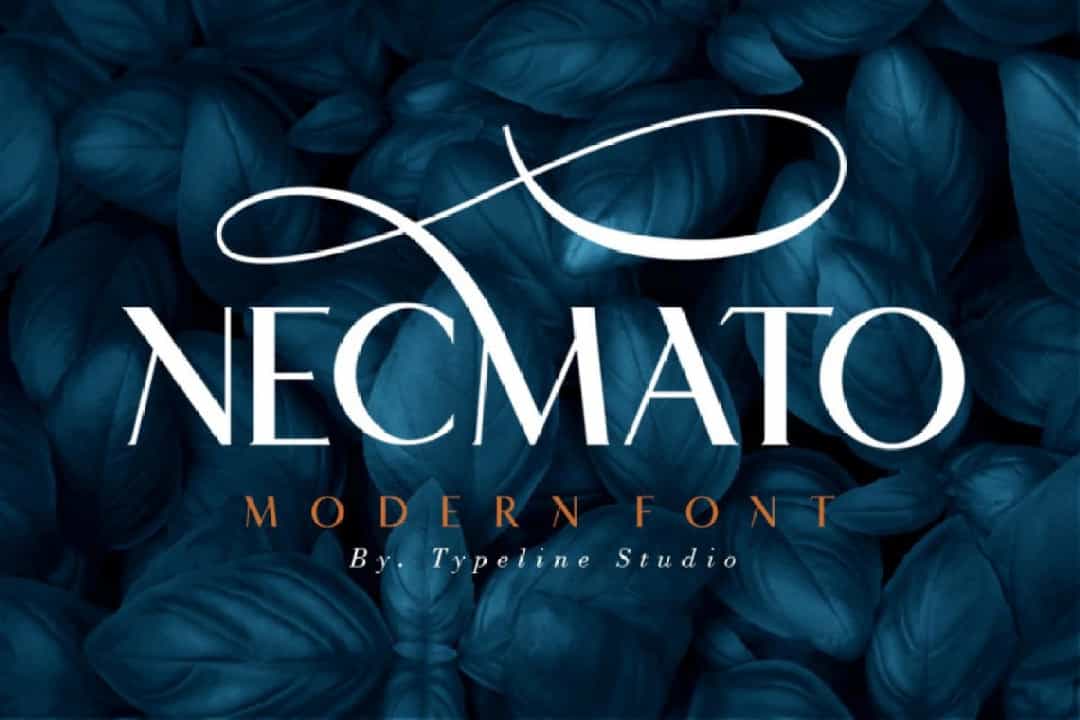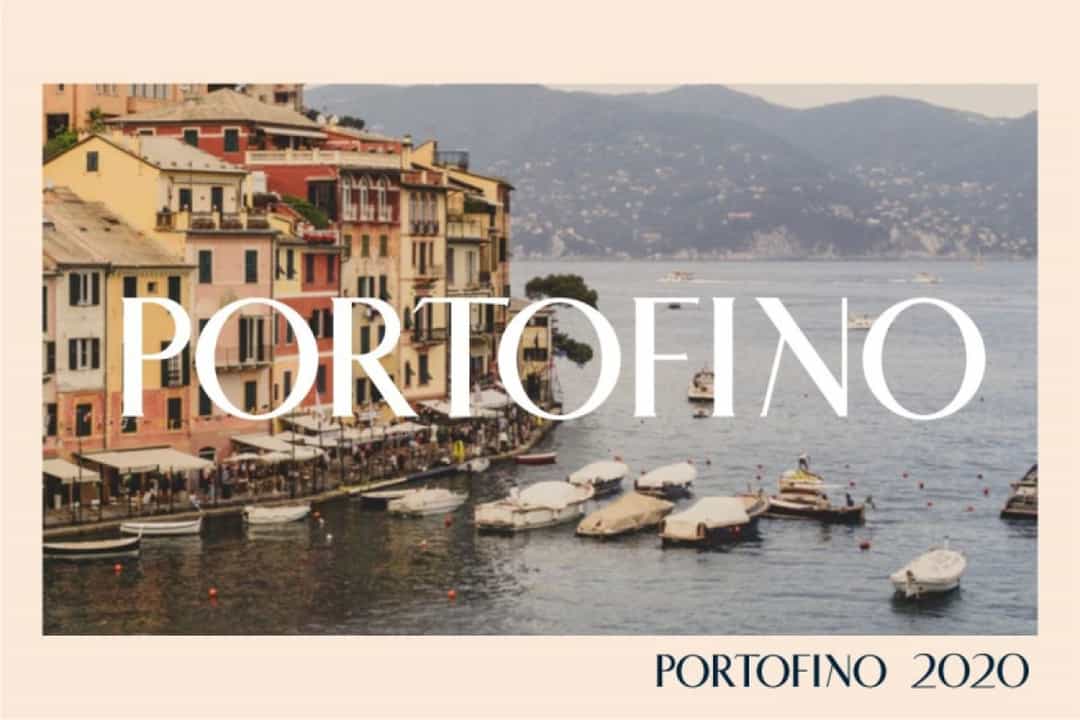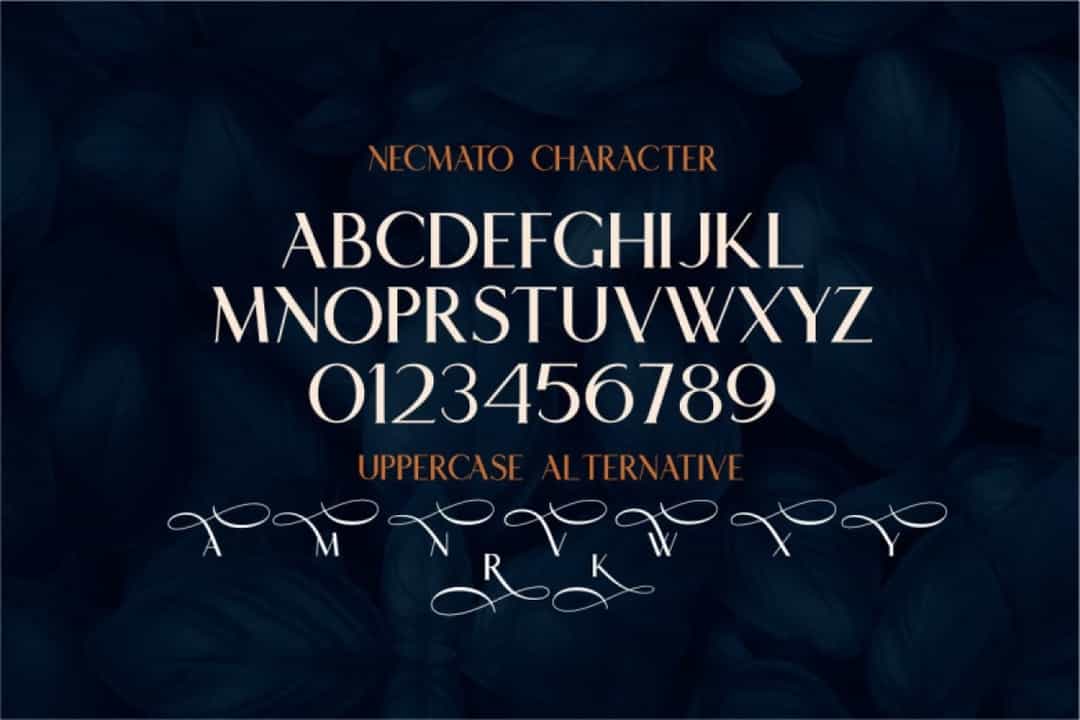
Necmato is an allcaps serif typeface with two font styles: regular and italic versions. Necamto font can be found across a wide variety of projects from art deco through modern times – logos, prints collages and body text are just some examples where Necmato shines! Plus its minimalist design gives an eye-catching vintage-modern aesthetic!